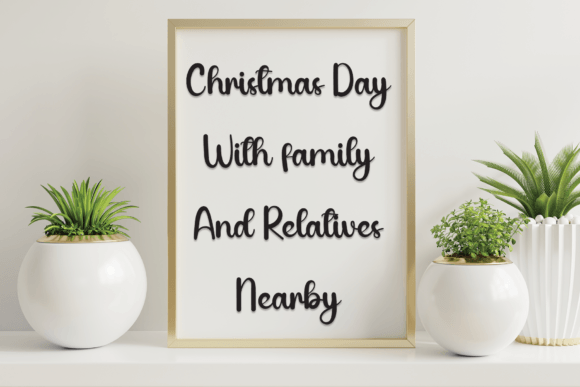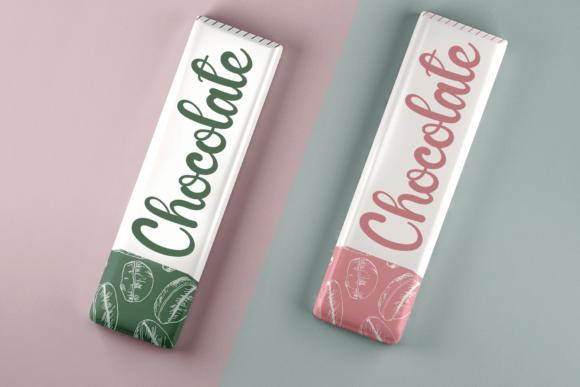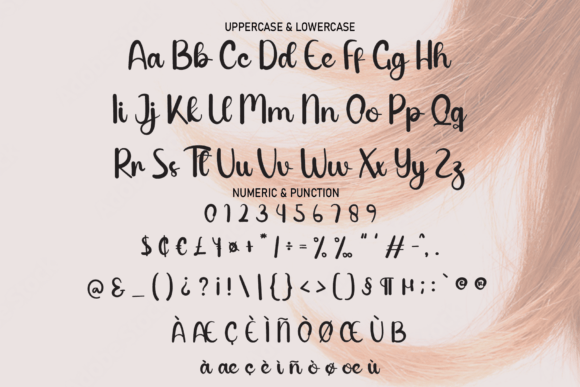
Single Line Font
Single Line feels equally charming and elegant. It looks stunning on wedding invitations, thank you cards, quotes, greeting cards, logos, business cards, and every other design which needs a handwritten touch.